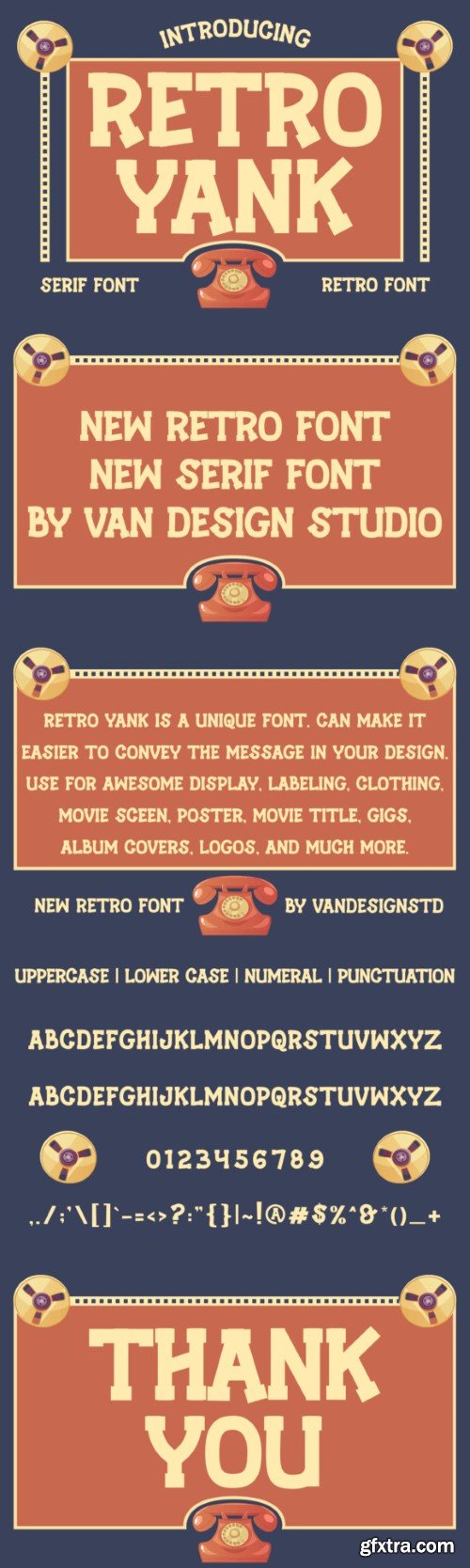
复古燕京字体
RETRO YANK is a unique font. Can make it easier to convey the message in your design.
Use for awesome display, labeling, clothing, movie sceen, poster, movie title, gigs, album covers, logos, and much more.
– Uppercase & lowercase letters
– Numbers & punctuation